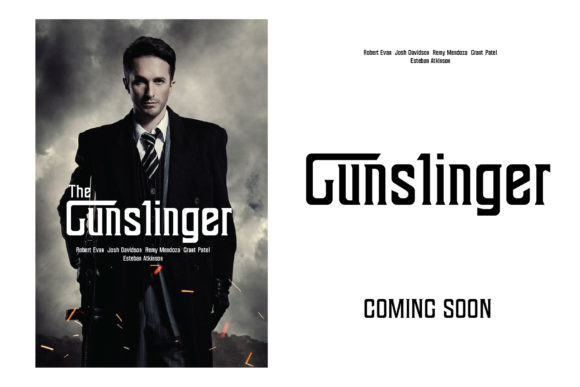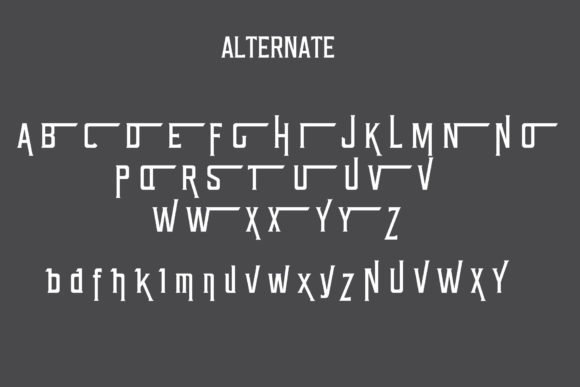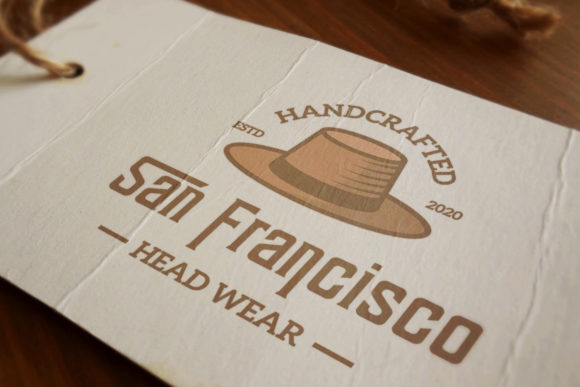
Don Corleon Font
Make your designs stand out with Don Corleon, a stylish and unique display font. It will look stunning on posters, thank you cards, quotes, greeting cards, logos, business cards and every other design which needs a creative touch.